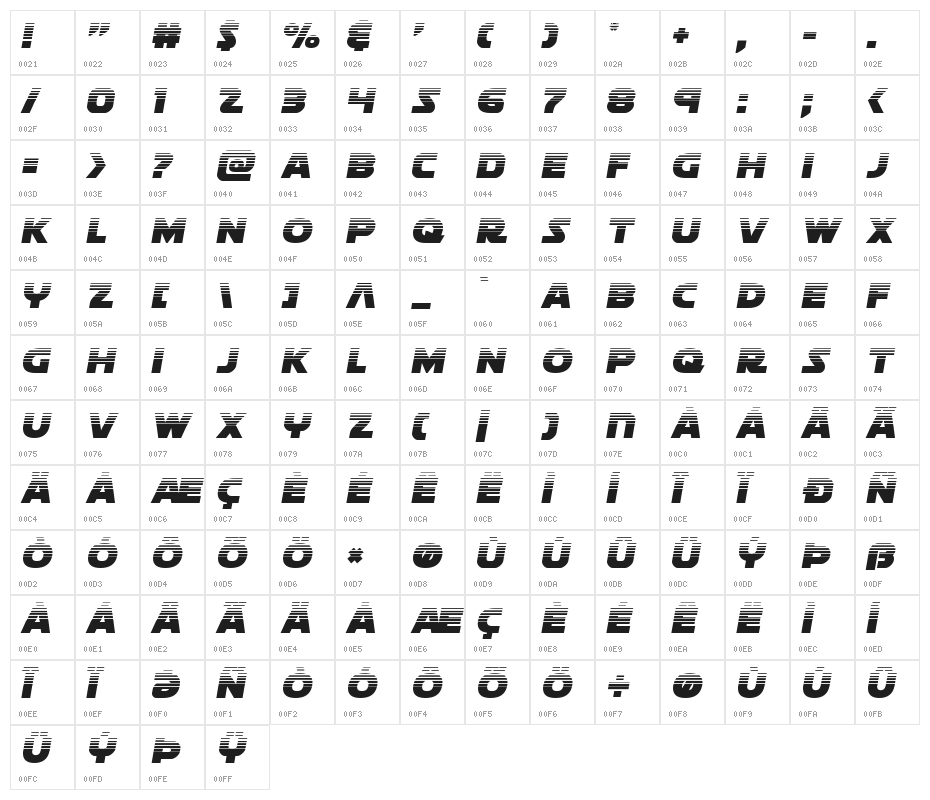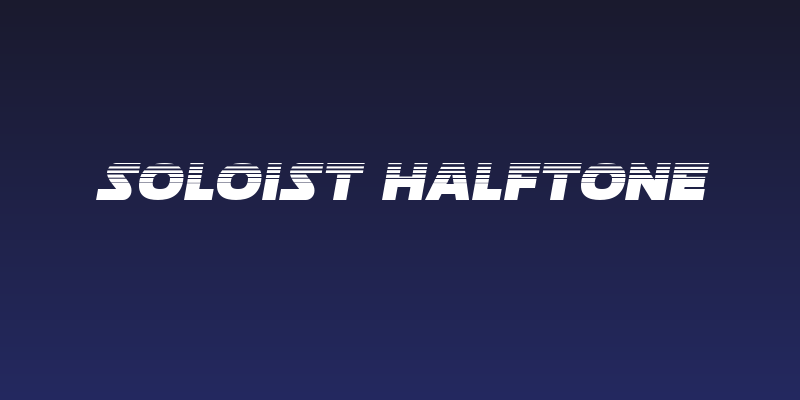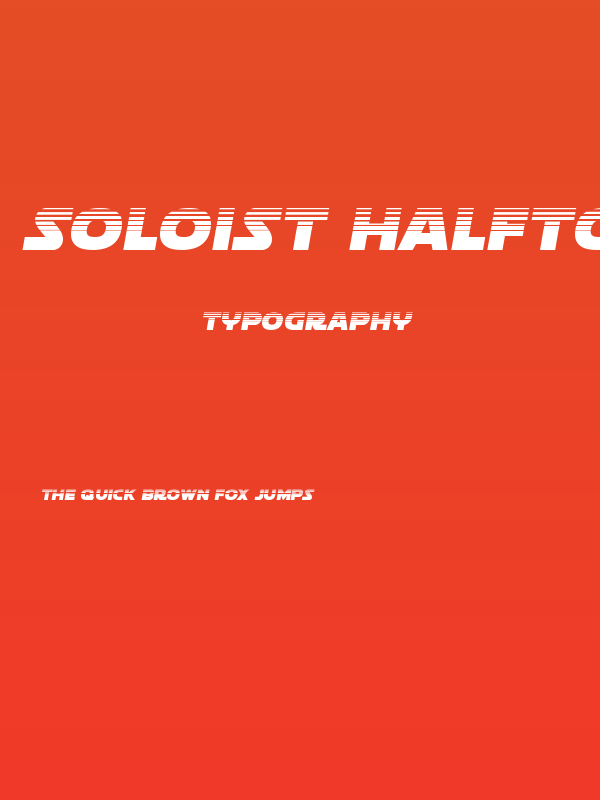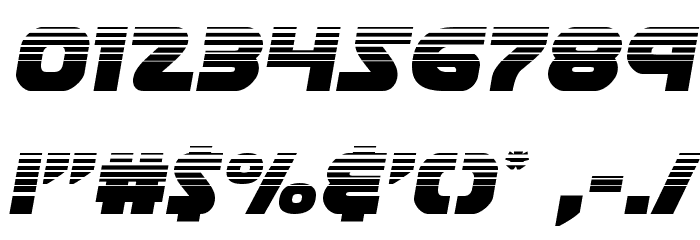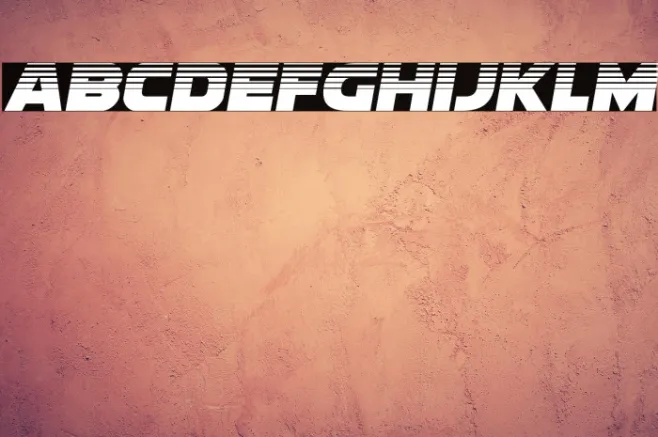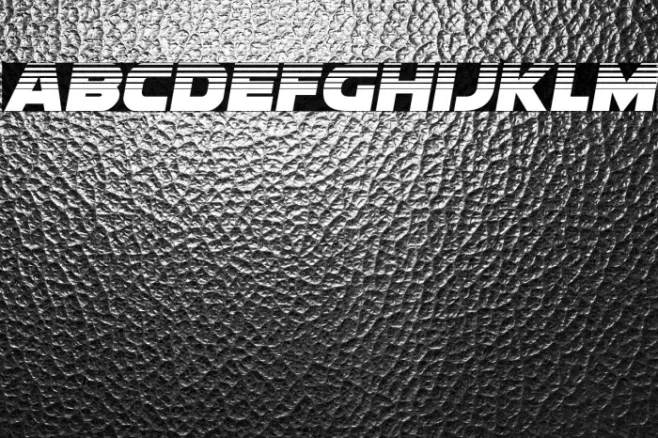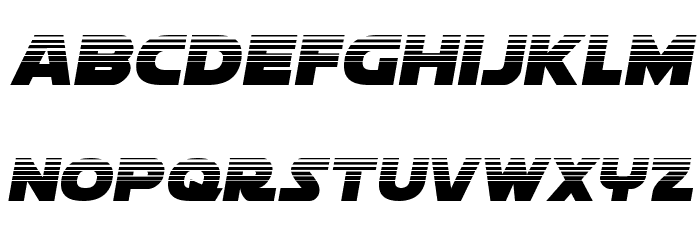
Soloist Halftone Font
Soloist Halftone Description
This font features a bold and dynamic design with a halftone effect that gives it a sense of movement and energy. The uppercase and lowercase letters are crafted with a unique pattern of horizontal lines that create a striking visual impact. The numbers and special characters follow the same design principle, ensuring consistency across all elements. This font is ideal for projects that require a modern and edgy look, making it perfect for headlines, posters, and branding materials. Its bold weight and expanded width make it stand out, while the medium contrast in stroke thickness adds to its readability.
| Proposed Projects | Ideal for modern branding, dynamic posters, and eye-catching headlines. |